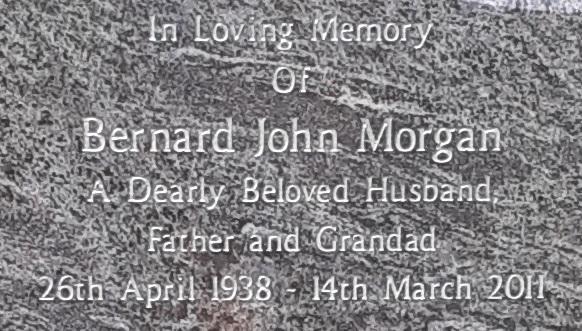
Please help with this font
Please help! It has tiny serifs, odd little wedge serifs and the tops of lower case letters are almost horizontal. It is similar in style to Memento but I have searched and cannot find it anywhere
Hi Buckley, I’m unsure of this one at first glance. It has elements of Amerigo and other glyphic fonts, but I can’t say I’ve seen this font specifically before. I will need to do some searching around and get back to you.
As an update – I found the letter shapes to match Mentor very closely, both Serif and Sans Serif versions of the font, but this seems to be an in-between version. The flared serifs don’t match either font, so it seems someone has adapted it to create some kind of Semi-serif variation.